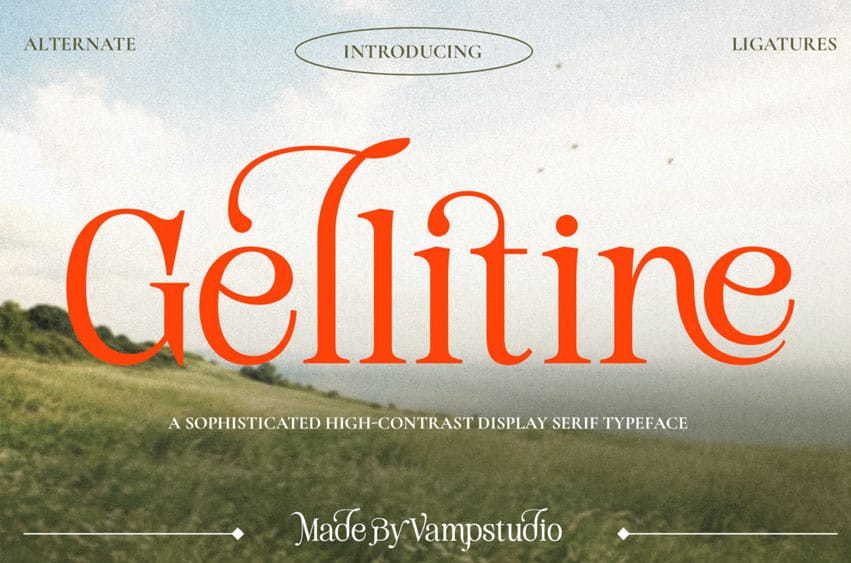
Gellitine Font is an awesome modern serif typeface crafted with high elegance and creative flair. Characterized by smooth curves, distinct serifs, and sophisticated proportions, this font brings a luxurious and unique visual presence to any contemporary layout.
Designed for versatility, Gellitine includes a complete character set with regular and slanted variations, alongside stylistic alternates and ligatures to give your text a refined custom feel. Whether you are designing fashion magazine covers, premium branding, luxury packaging, event posters, editorial layouts, or logotypes, Gellitine delivers timeless style.
Complete Uppercase & Lowercase character sets (Regular & Slanted)
Numbers, Punctuation & Currency Symbols
Unique Ligatures & Stylistic Alternates for custom typography
Multilingual Support
High-contrast serif aesthetic perfect for high-end aesthetics
Ideal for luxury branding, editorial design, packaging, and headlines